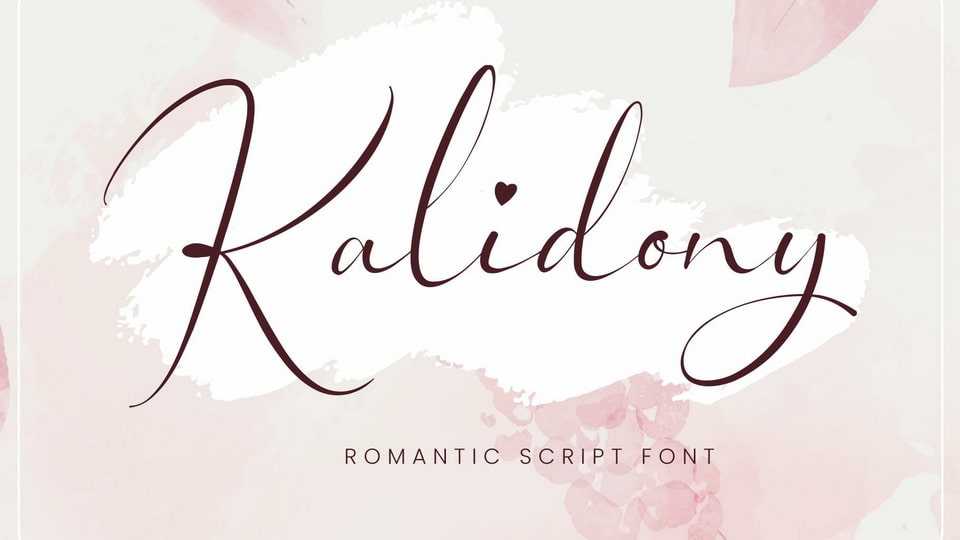
Download Kalidony font, a wonderful wedding typeface inspired by the upscale wedding design and the luxury woman stuffs. Kalidony represents a classy impression with beautiful thick and thin strokes.